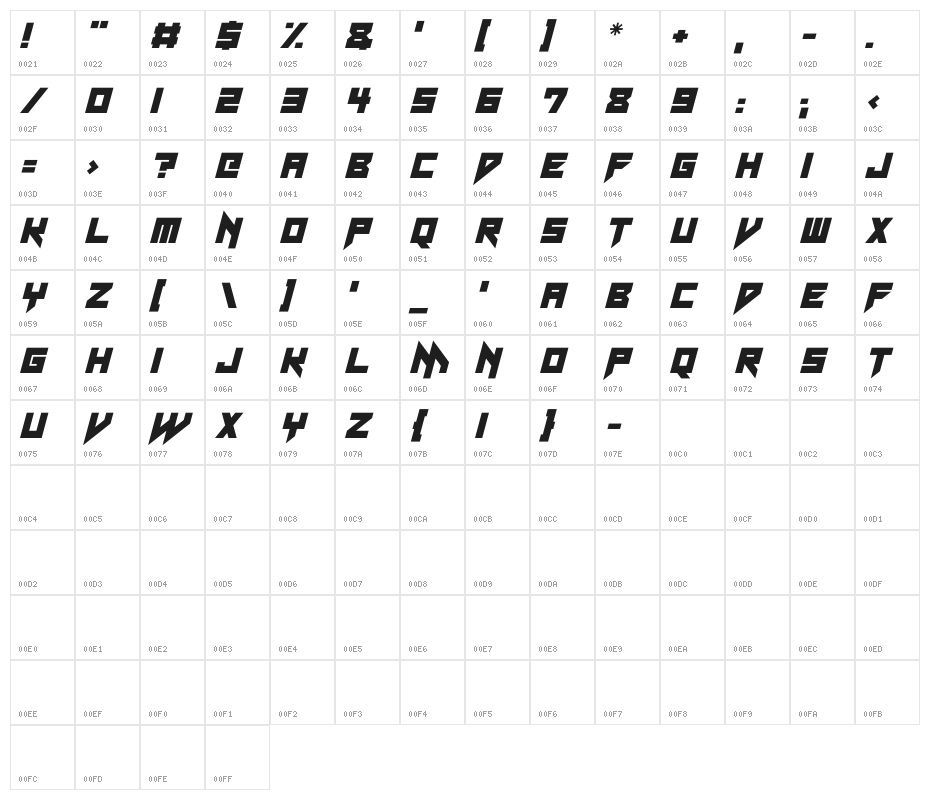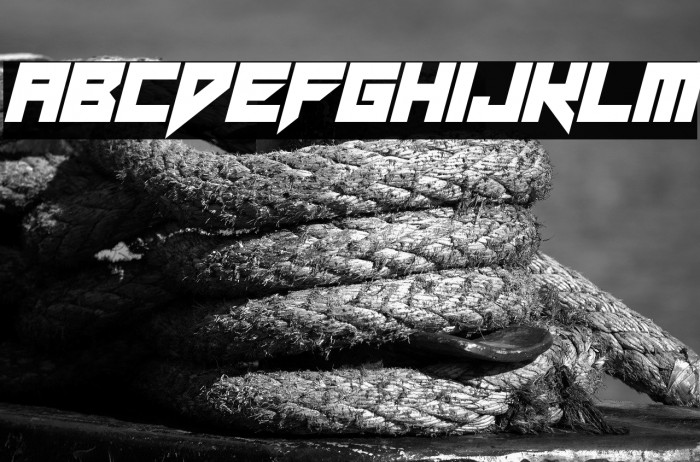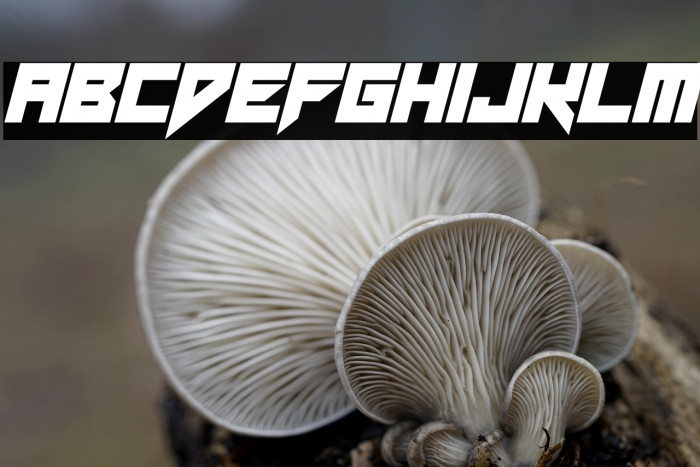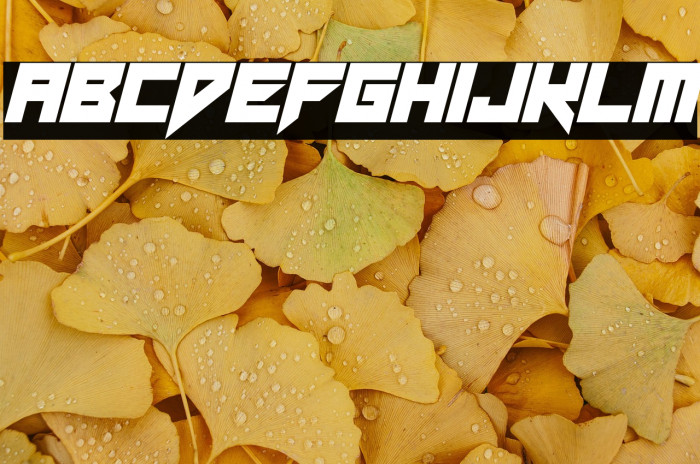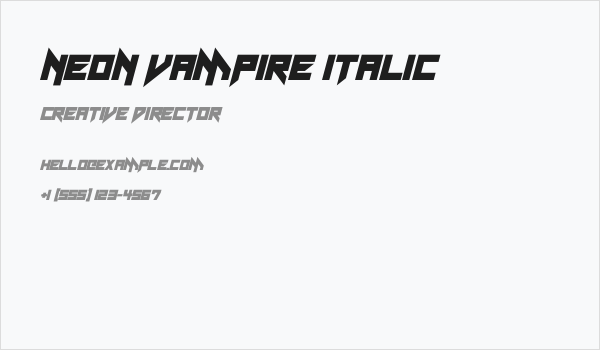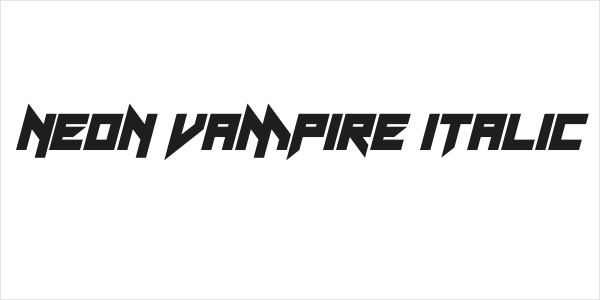
Neon Vampire Italic Font
Neon Vampire Italic Description
This font features a bold and angular design with sharp, pointed edges that give it a futuristic and edgy appearance. The characters are heavily stylized, with a consistent slant that adds a dynamic and italicized effect. The uppercase and lowercase letters maintain a uniform height, contributing to a cohesive look. The numerals and special characters follow the same design principles, ensuring a seamless integration across different text elements. The font's aggressive and modern style makes it suitable for projects that require a strong visual impact.
| Proposed Projects | Ideal for sci-fi movie posters, video game titles, edgy branding, and music album covers. |